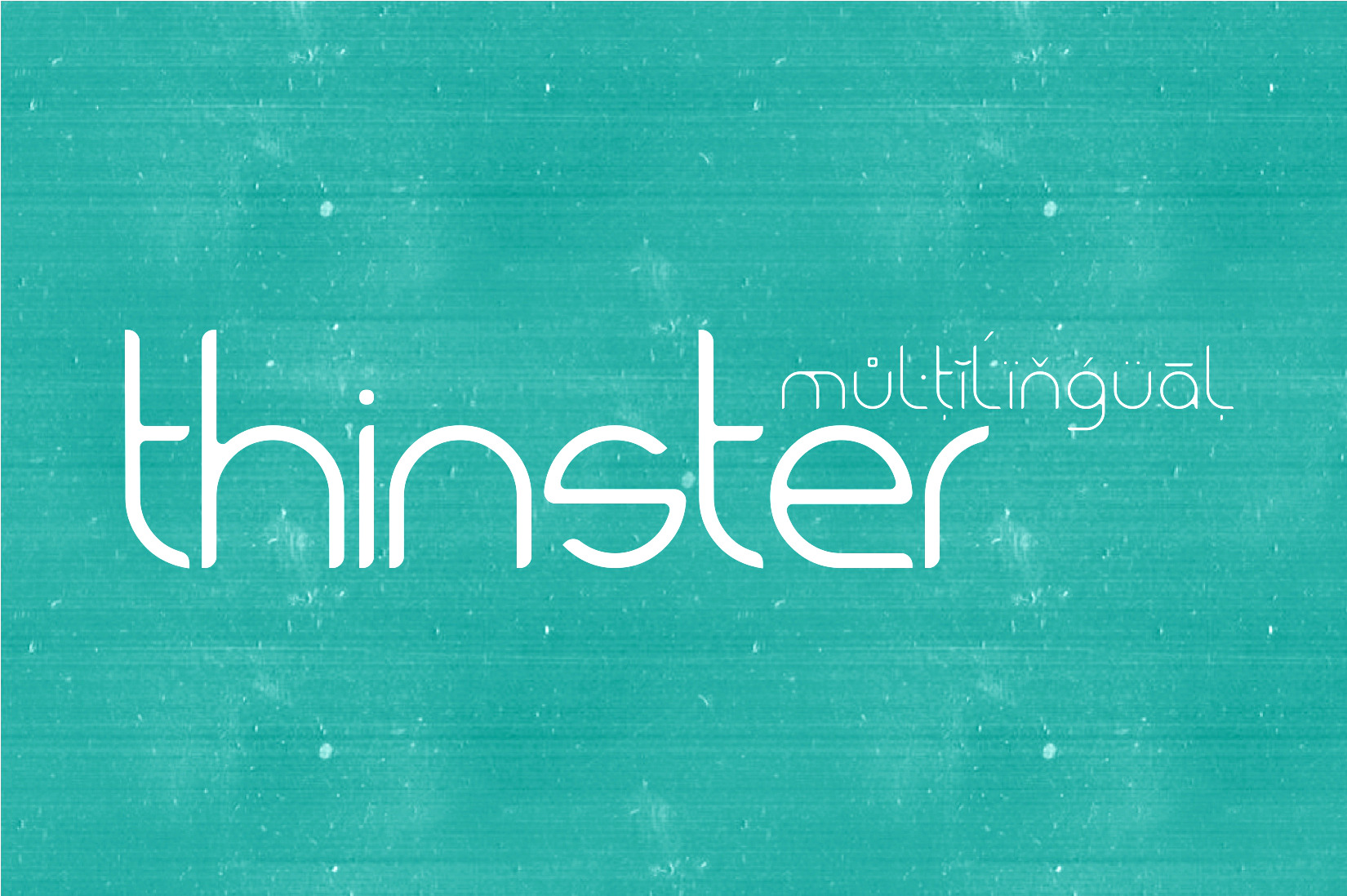
Thinster Typeface
Thinster is a versatile new typeface, carefuly crafted for a clean look and legibly even at small sizes. It comes in regular and bold weights with 412 glyphs and 288 kernings.
It’s perfect for both on screen display and prints and supports a variety of languages.